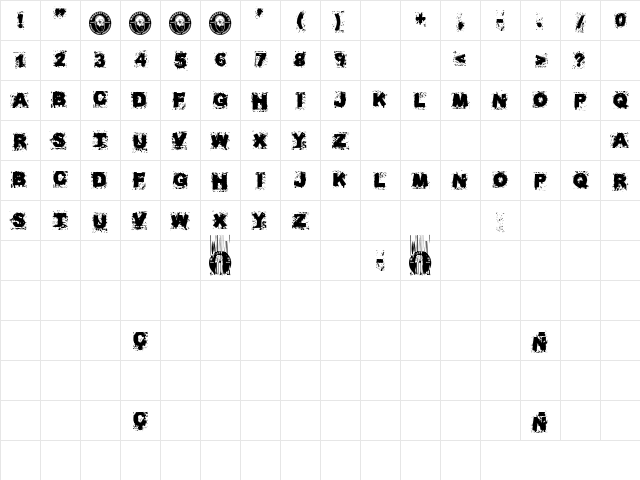
Complete La Casa del Cementerio Regular glyph index. Displaying only characters natively supported by La Casa del Cementerio Regular font.
La Casa del Cementerio is a composed and adaptable typeface that performs quietly and consistently across a wide range of design contexts.